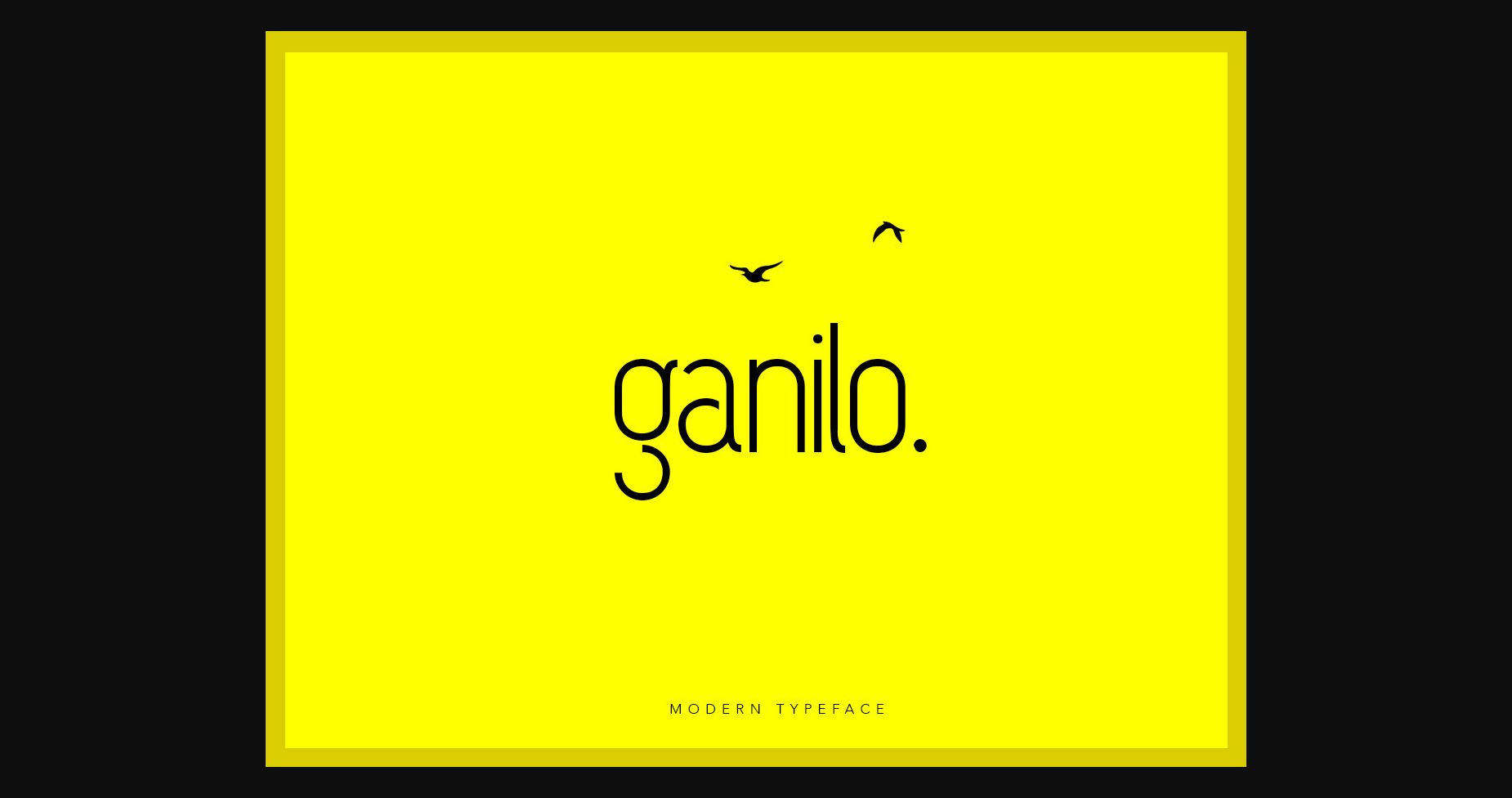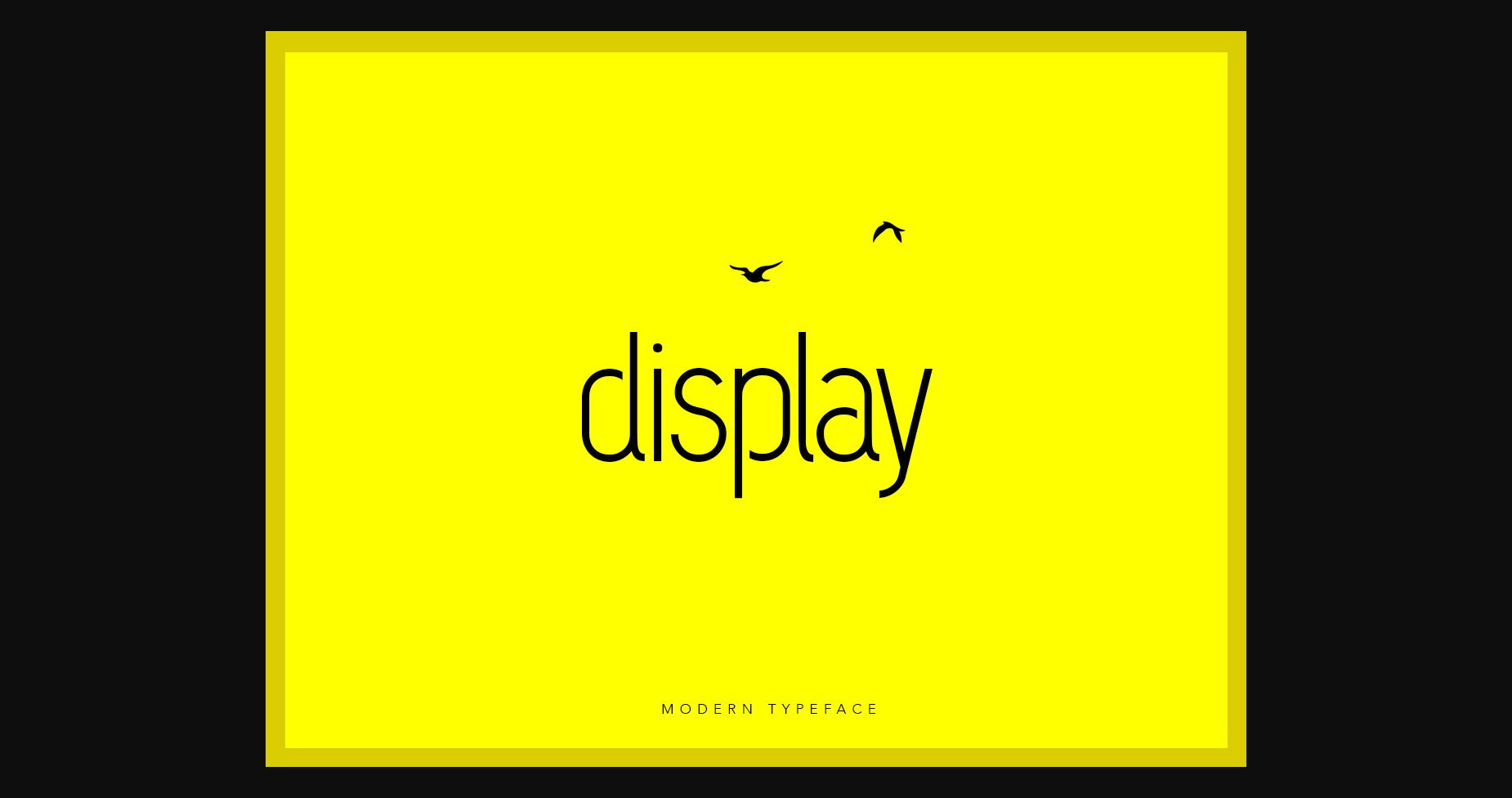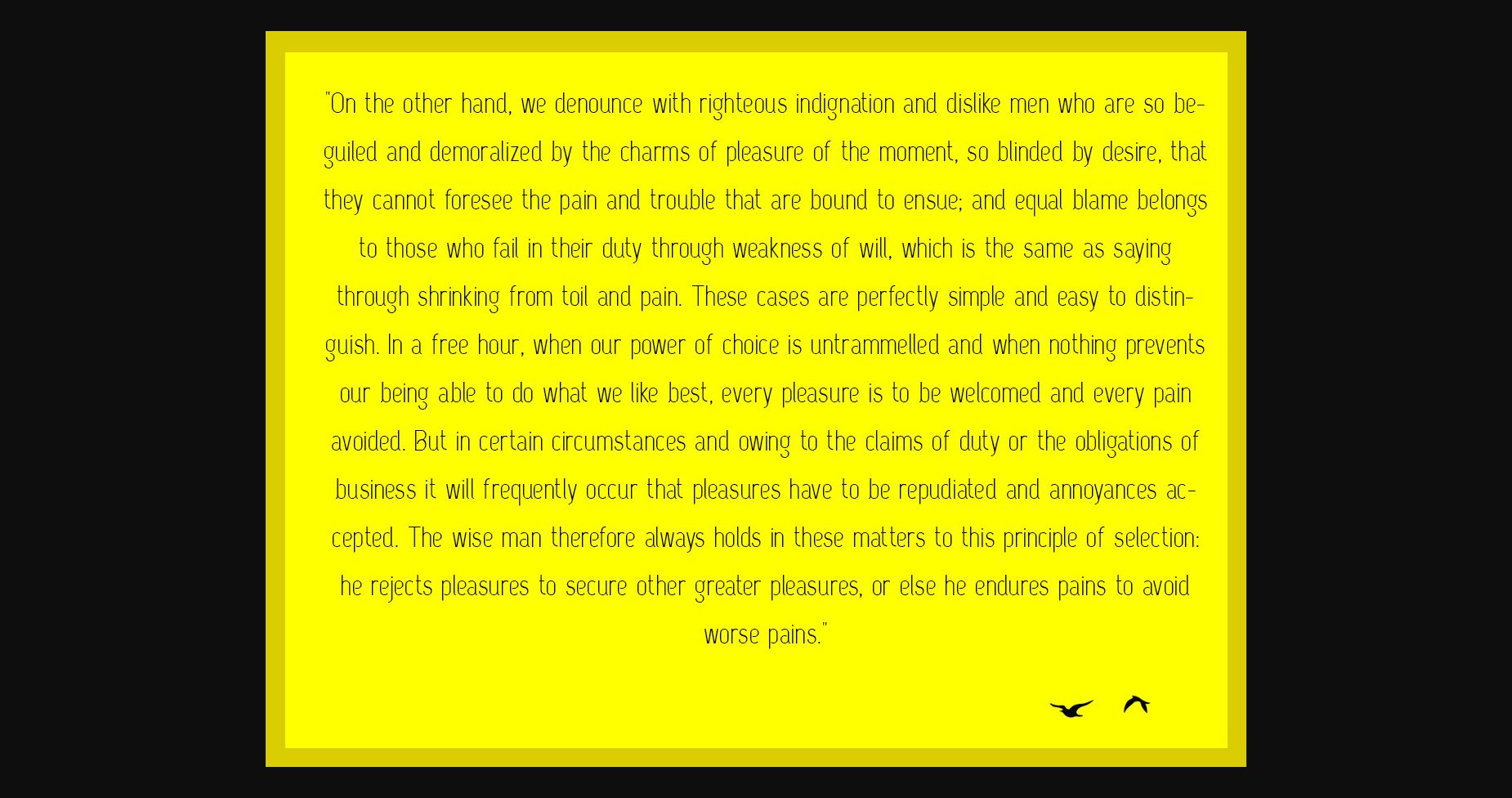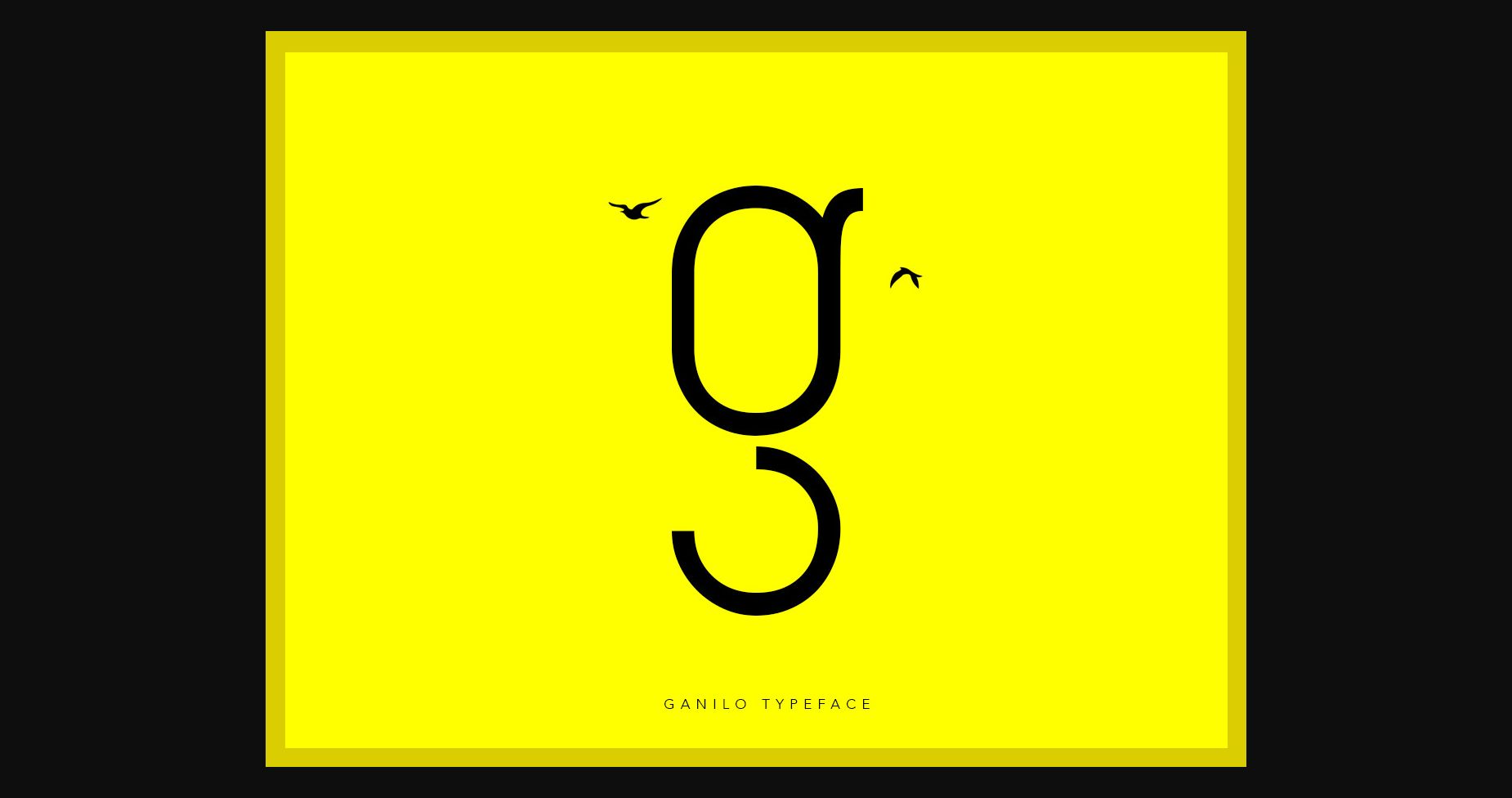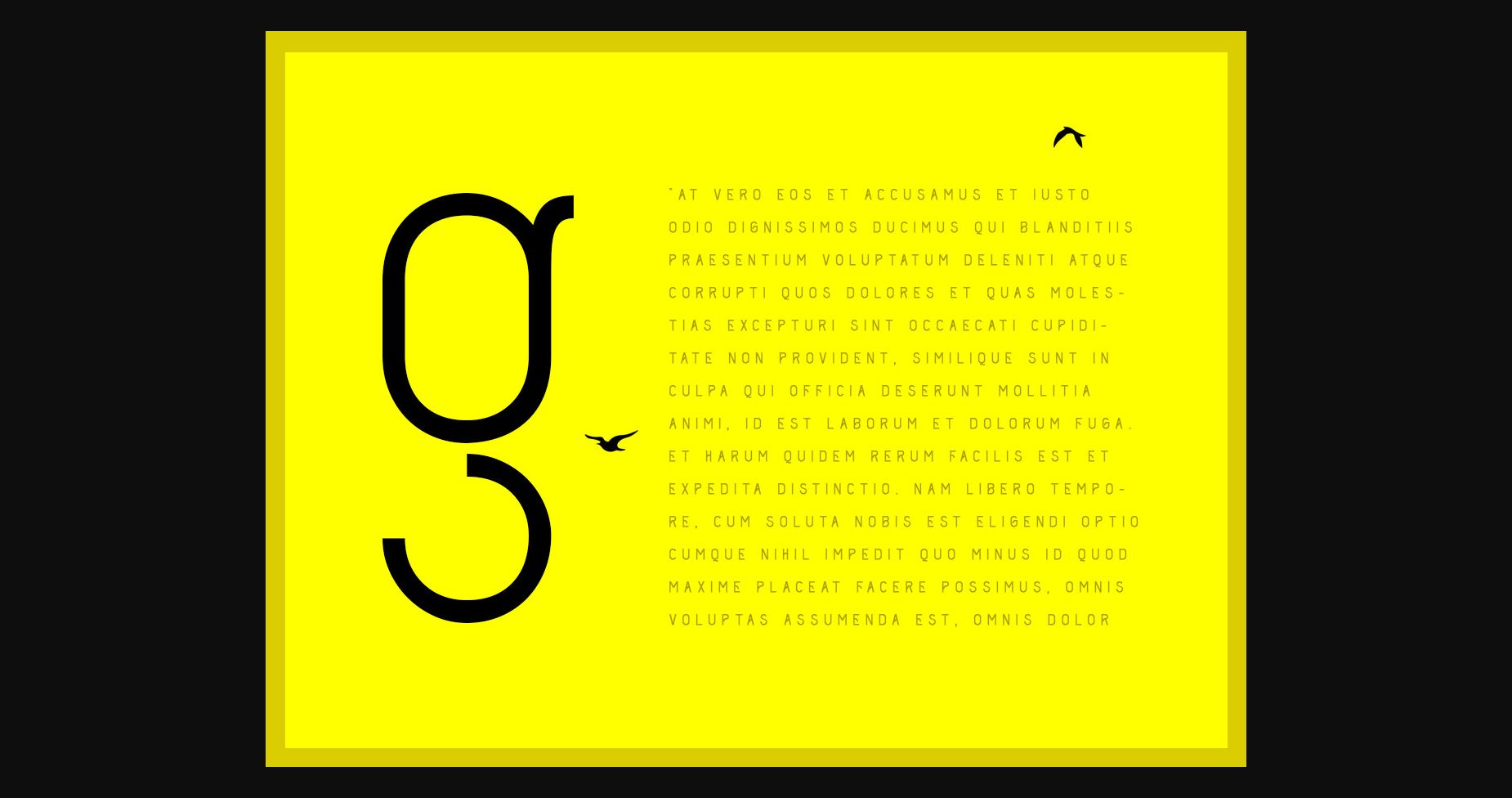
Ganilo is a minimal and neat sans serif font. It can easily be matched to an incredibly large set of projects, so add it to your creative ideas and notice how it makes them stand out!